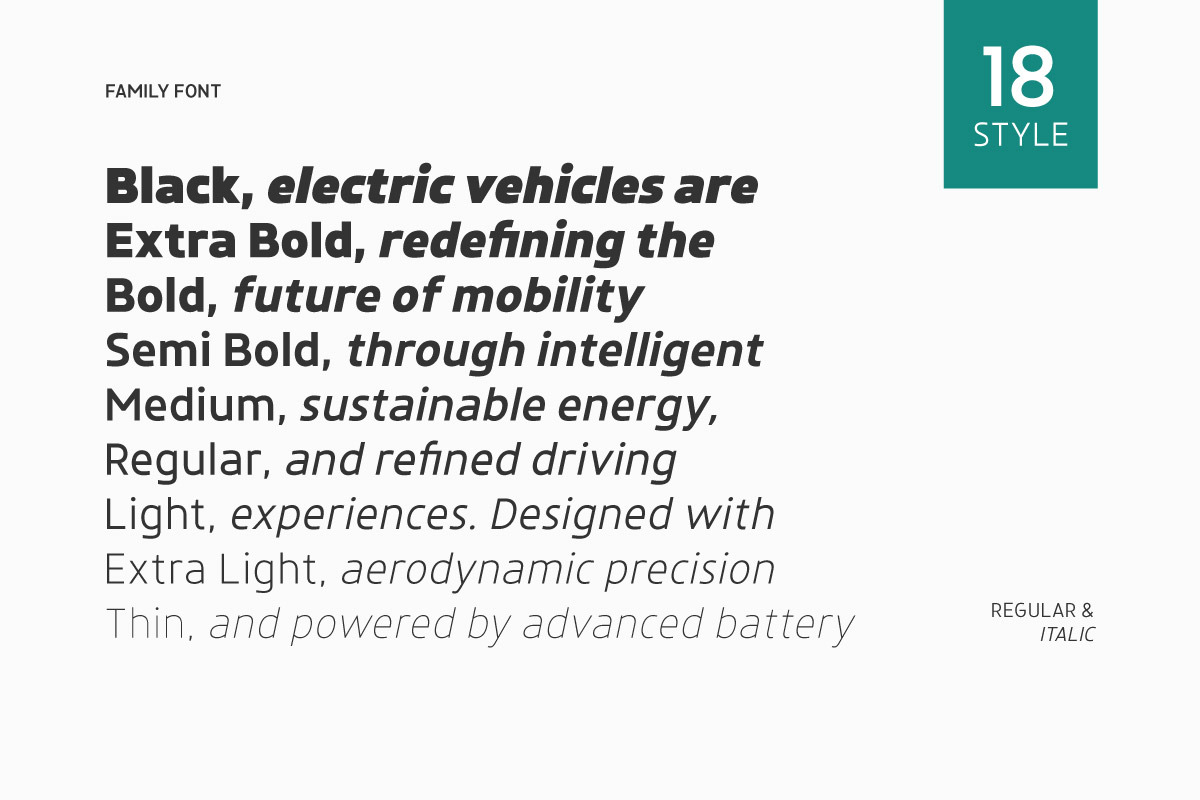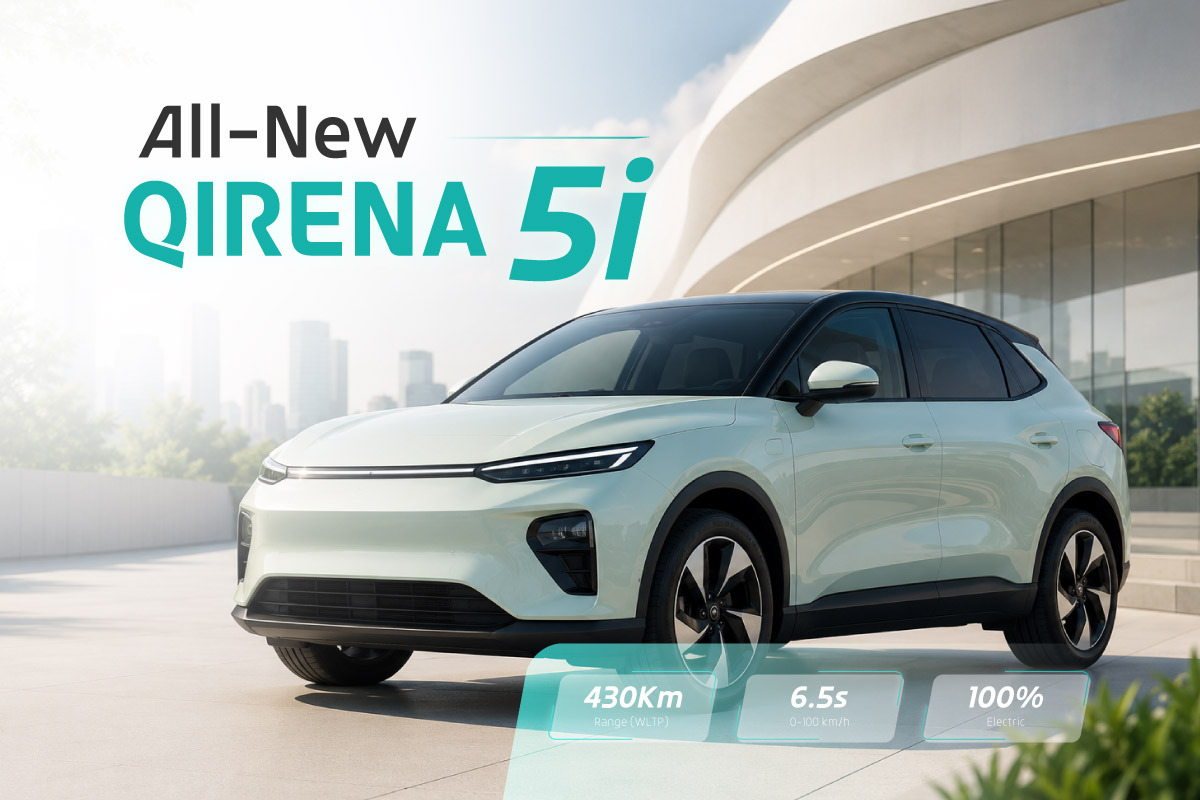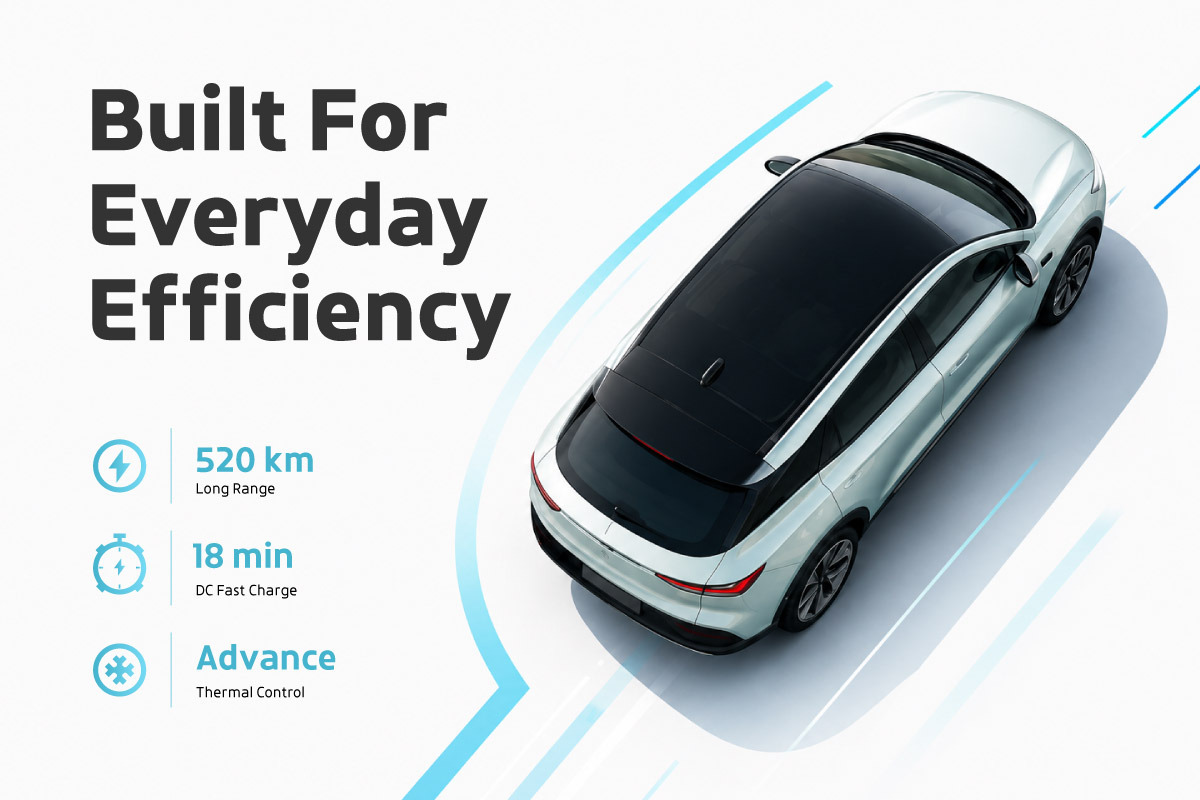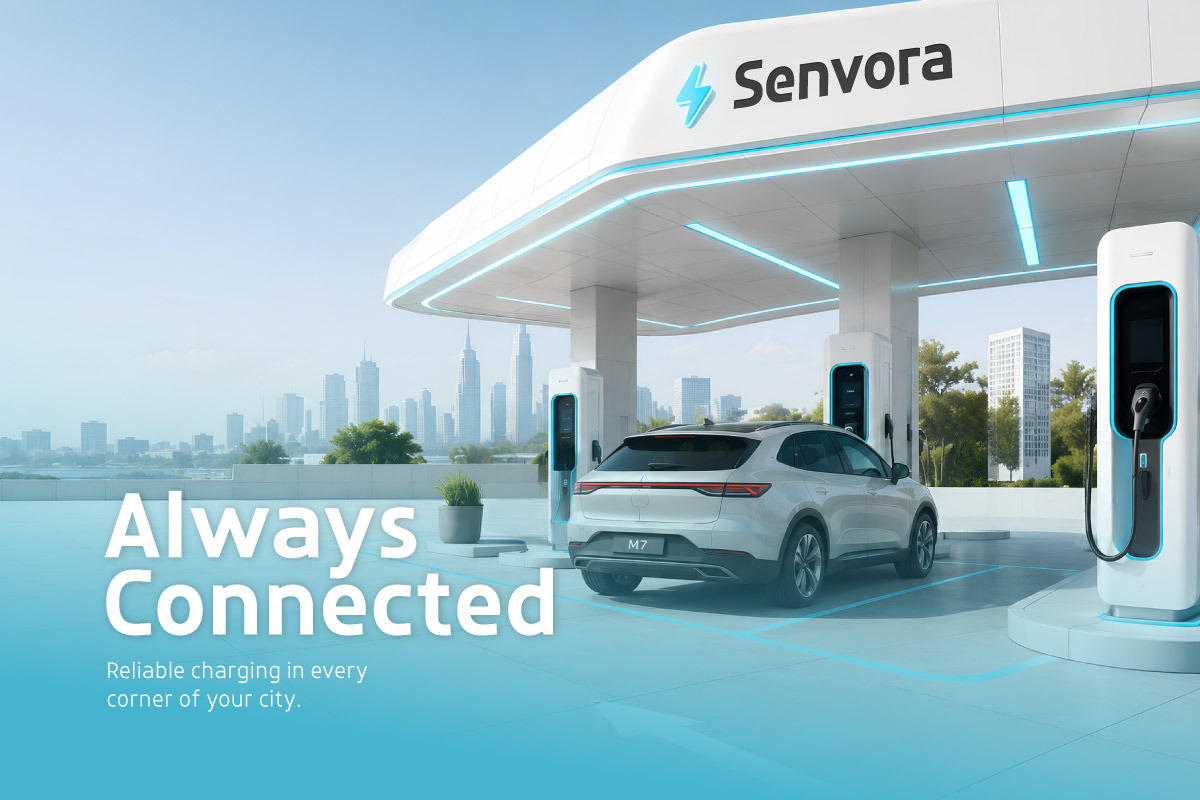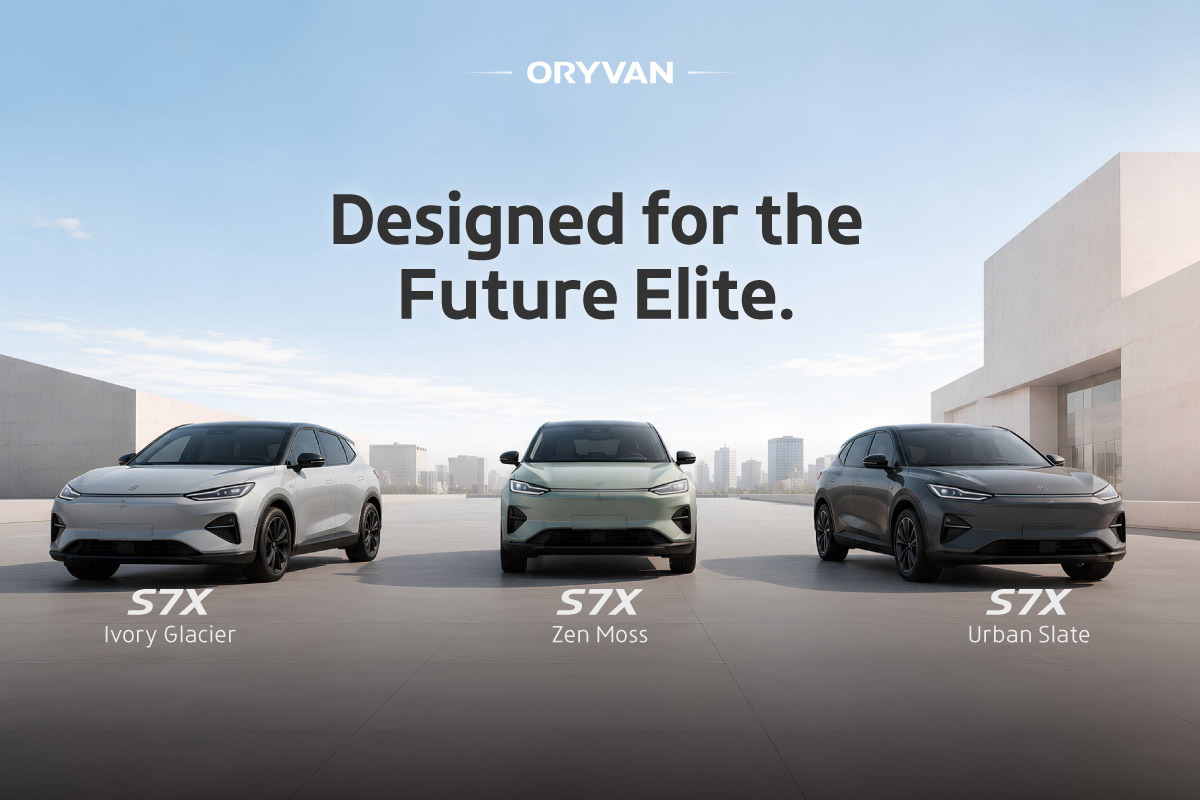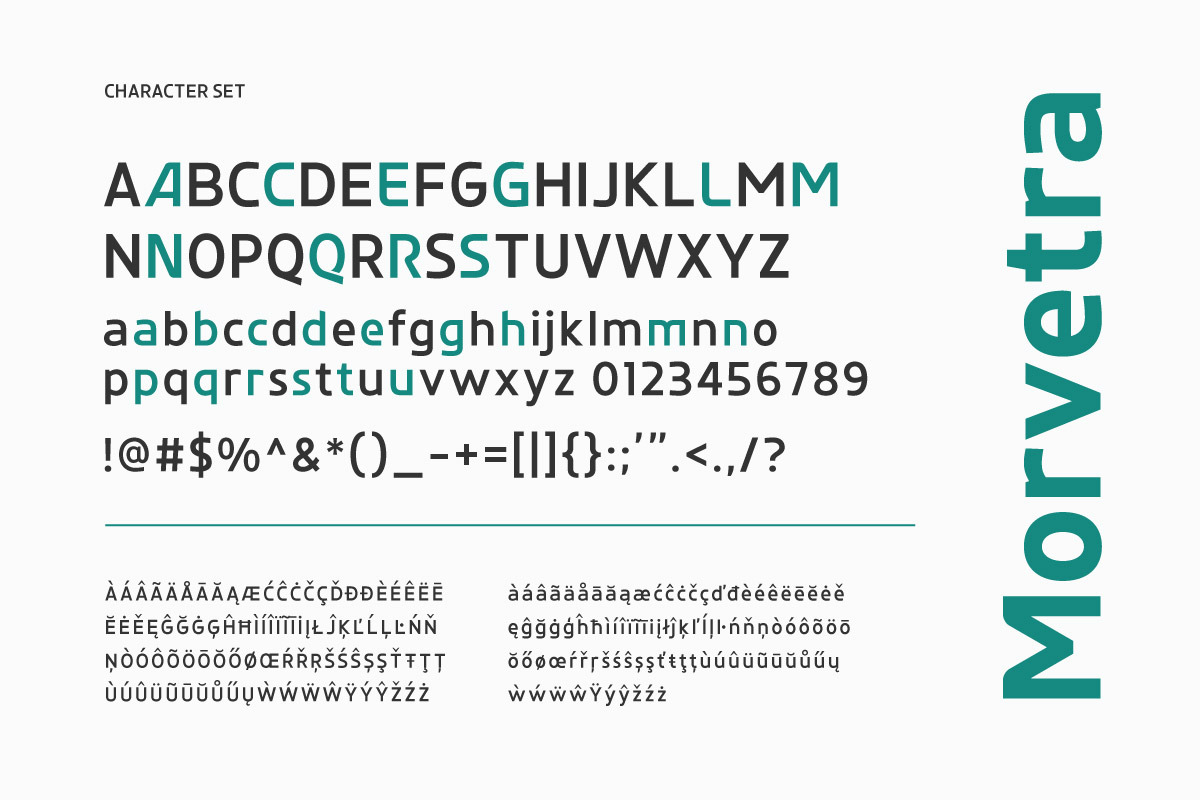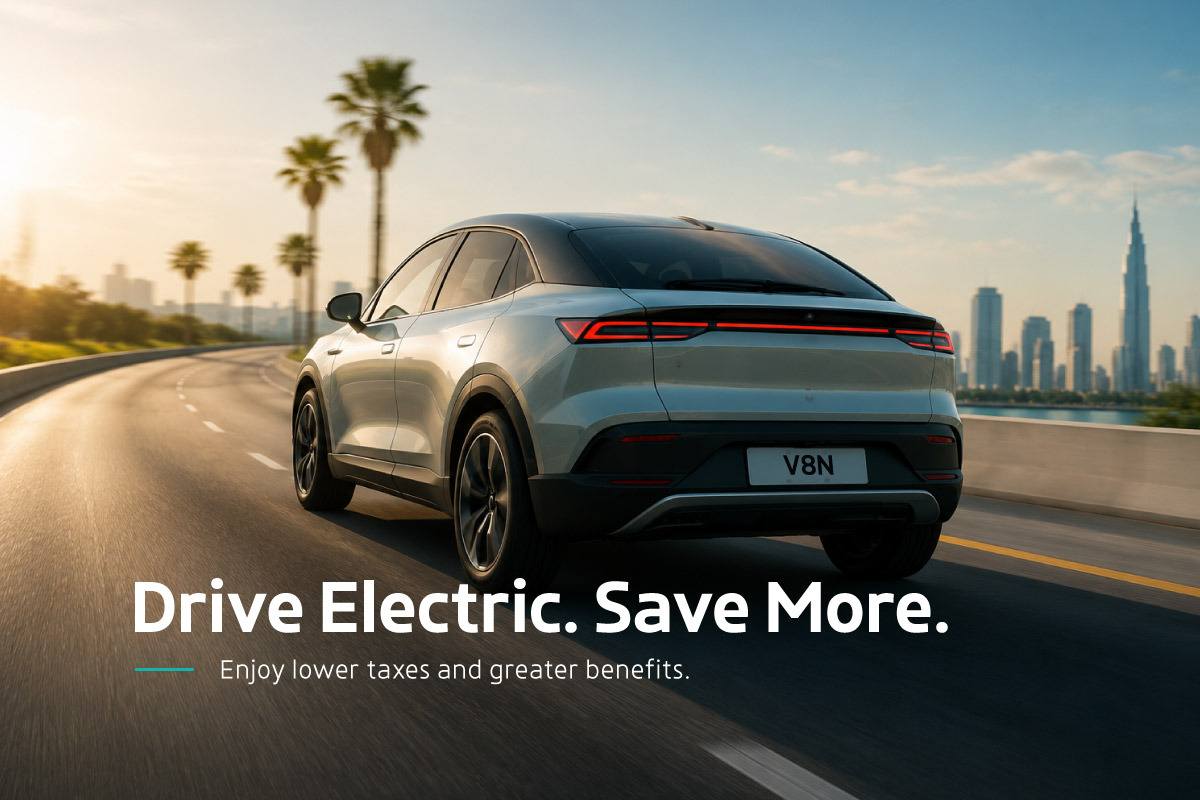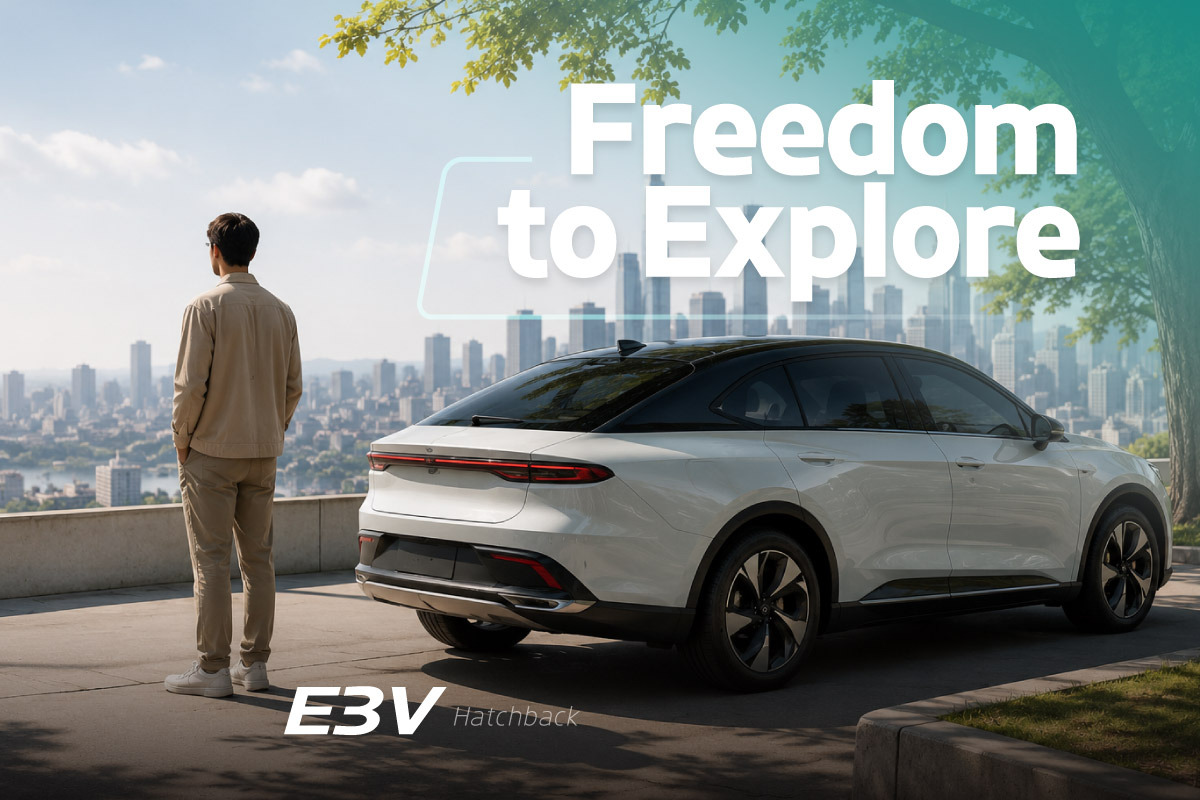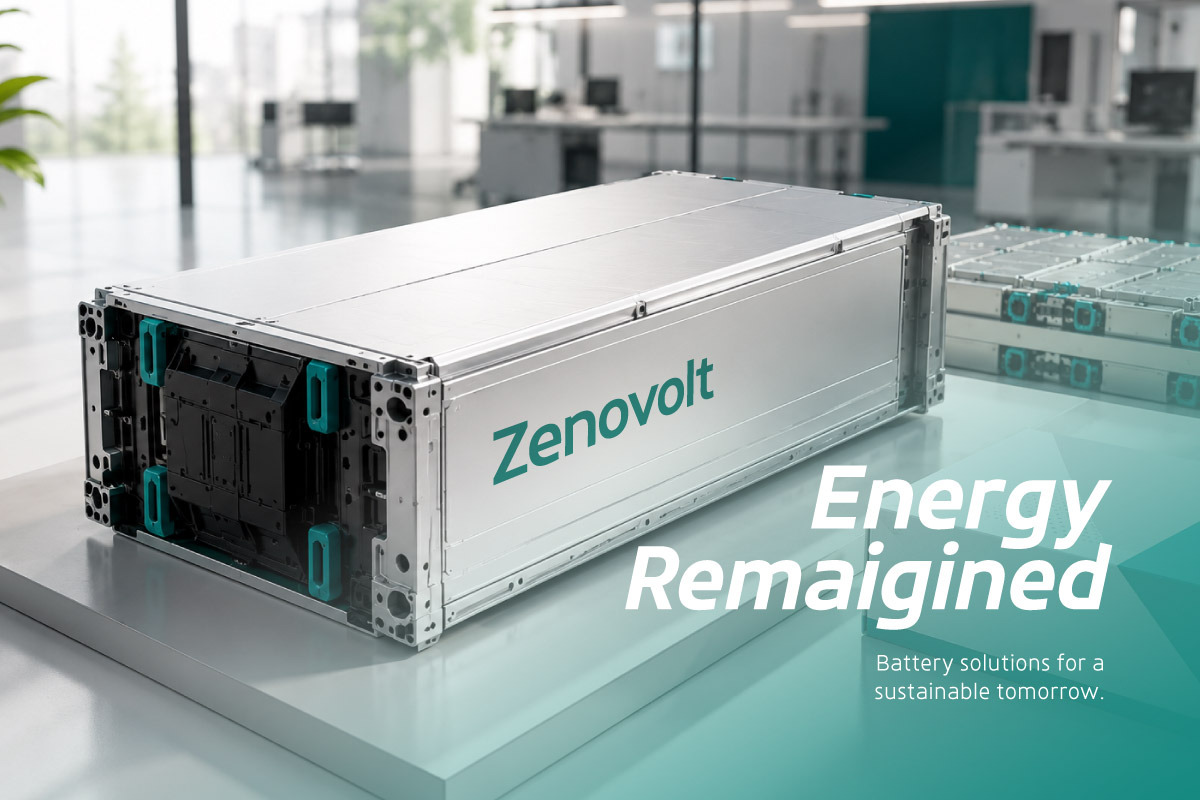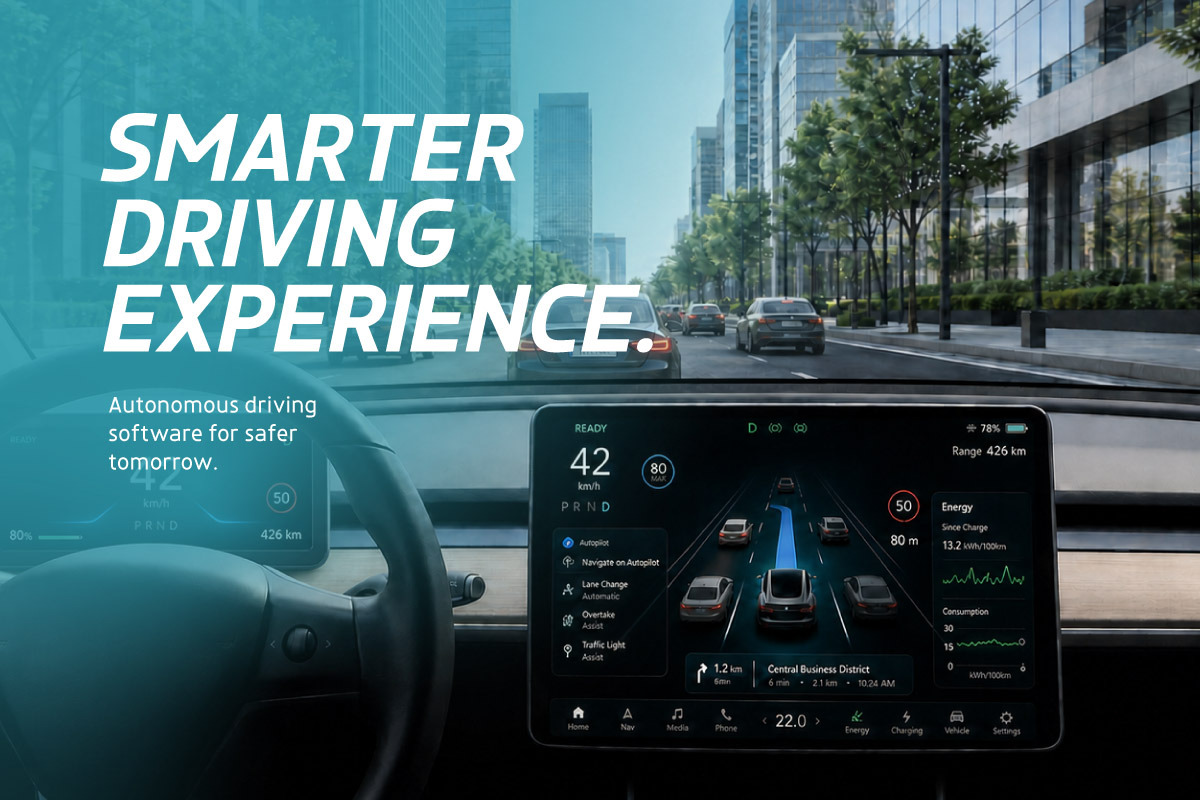
Morvetra TM - Electric Vehicle Sans
Morvetra TM - Electric Vehicle Sans is a modern sans serif typeface crafted to embody the future of electric mobility, sustainable energy, and automotive innovation. Featuring clean, aerodynamic, and futuristic letterforms, this font delivers a progressive and premium appearance that perfectly aligns with electric vehicle brands and technology-driven companies. Its minimalist yet confident design reflects efficiency, intelligence, and the evolution of modern transportation.
This typeface is ideal for electric vehicle branding, EV startups, charging infrastructure companies, automotive websites, sustainability campaigns, mobility platforms, technology presentations, and innovative corporate identities. The balanced structure ensures excellent readability while maintaining a sophisticated and forward-thinking visual presence across digital and print applications.
With multiple font families, multilingual support, ligatures, and stylistic alternates, Morvetra TM offers the versatility needed to create impactful and professional brand experiences. It is an excellent choice for businesses shaping the future of electric transportation, renewable energy, and smart mobility solutions.
- Multilingual Support: Fully supports 85+ languages, including:
Afrikaans, Albanian, Asu, Basque, Bemba, Bena, Breton, Catalan, Chiga, Cornish, Croatian, Czech, Danish, Dutch, Embu, English, Esperanto, Estonian, Filipino, Finnish, French, Friulian, Galician, Gusii, Hungarian, Indonesian, Irish, Italian, Kabuverdianu, Kalenjin, Kamba, Kikuyu, Kinyarwanda, Latvian, Lithuanian, Lower Sorbian, Luo, Luxembourgish, Luyia, Machame, Makhuwa-Meetto, Makonde, Malagasy, Maltese, Manx, Meru, Morisyen, North Ndebele, Norwegian Bokmål, Norwegian Nynorsk, Nyankole, Oromo, Polish, Portuguese, Quechua, Romanian, Romansh, Rombo, Rundi, Rwa, Samburu, Sango, Sangu, Scottish Gaelic, Sena, Serbian, Shambala, Shona, Slovak, Slovenian, Soga, Somali, Spanish, Swahili, Swedish, Swiss German, Taita, Teso, Turkish, Upper Sorbian, Uzbek (Latin), Volapük, Vunjo, Walser, Zulu.